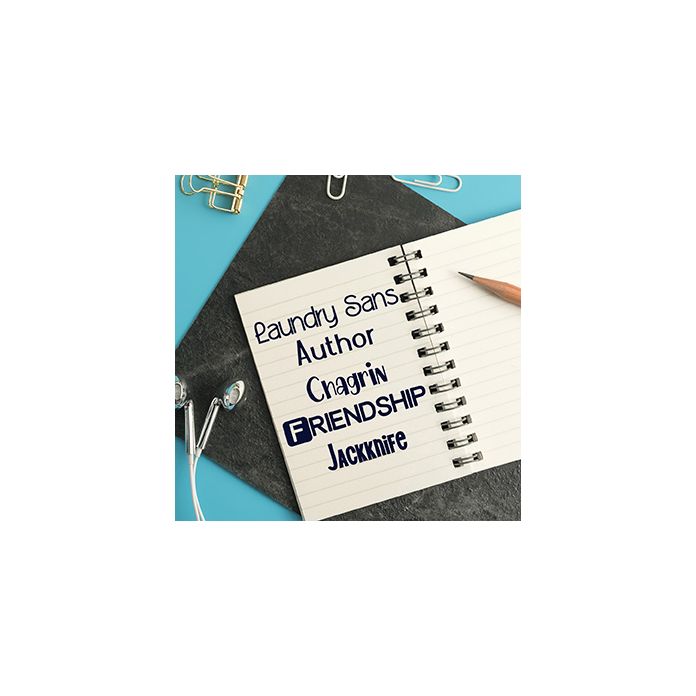
Sans Crafted Font Bundle
This hand-crafted font bundle features five, unique sans serif fonts.
Hand-crafted fonts can be either formal or informal, and they can be used for a variety of purposes. Some of the characteristics of handwritten fonts include: The letters are not perfectly uniform in size or shape. There may be slight variations in the spacing between letters and words. The font may have a "wiggly" or "squiggly" appearance. The font may be difficult to read at small sizes. Handwritten fonts can be a great way to add a casual touch to your designs. They can also be used to create a sense of nostalgia or whimsy. However, it is important to choose a handwritten font that is appropriate for the project you are working on. A formal handwritten font may not be appropriate for a casual invitation, while an informal handwritten font may not be appropriate for a corporate document.